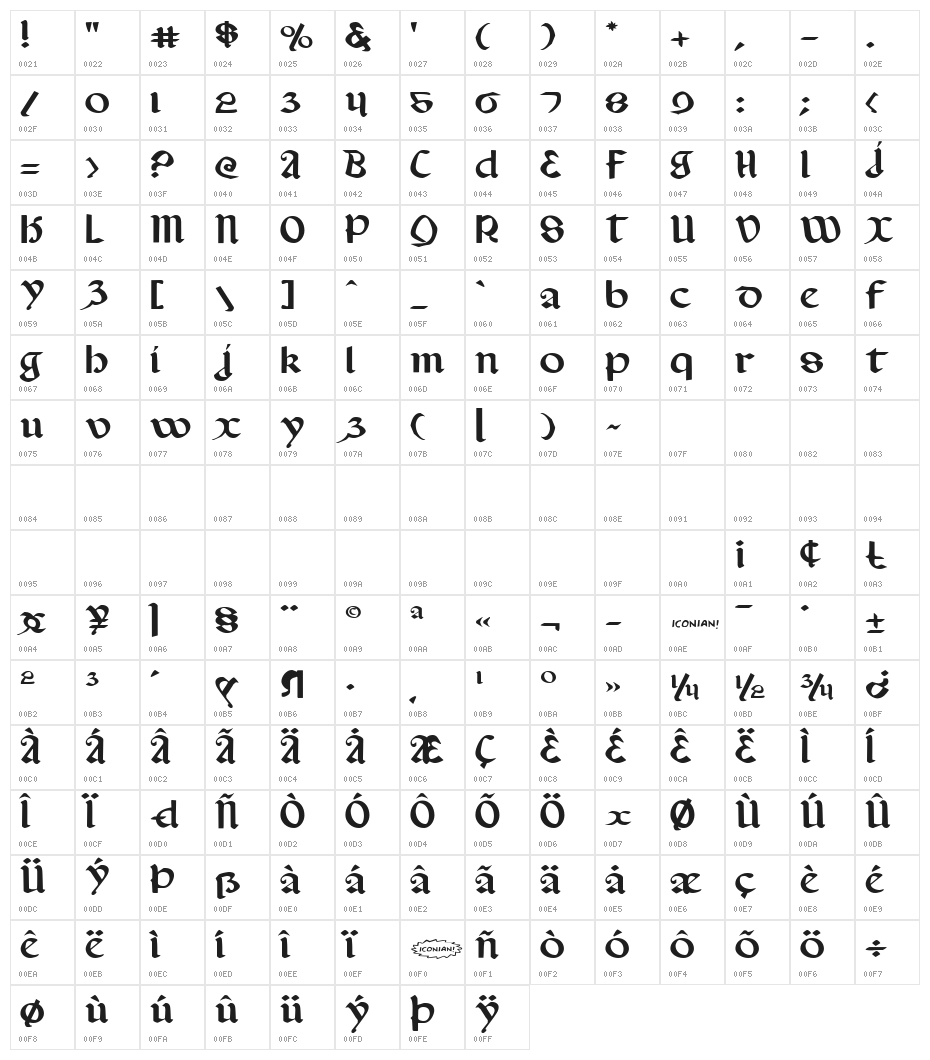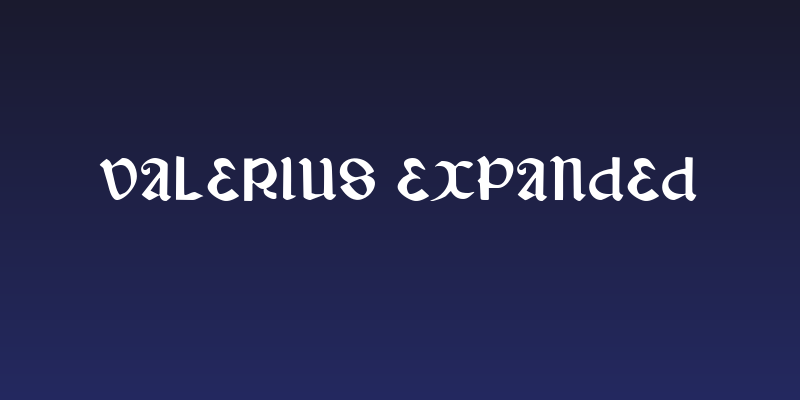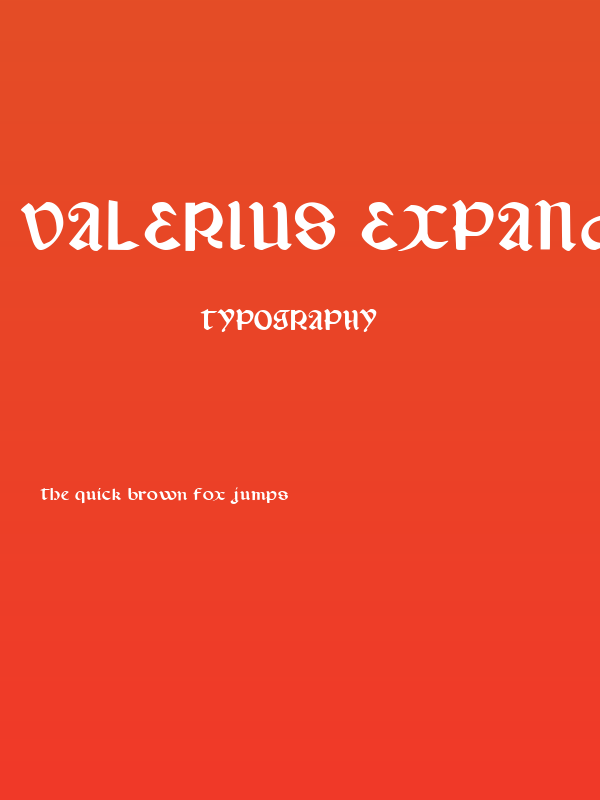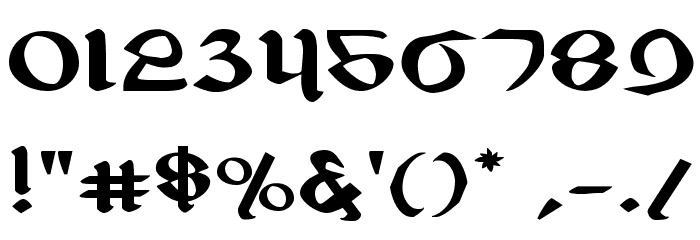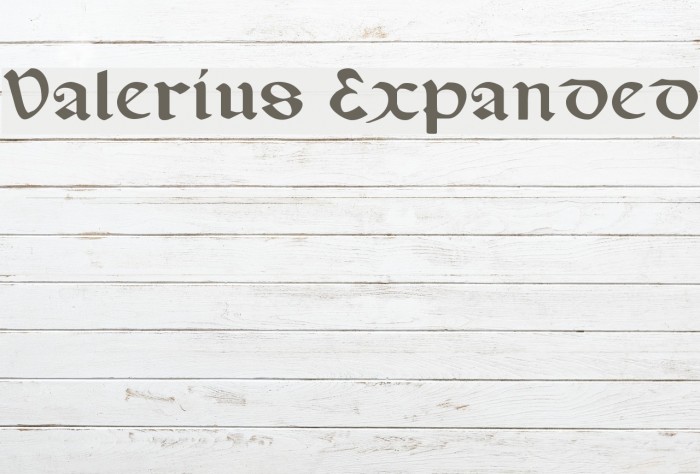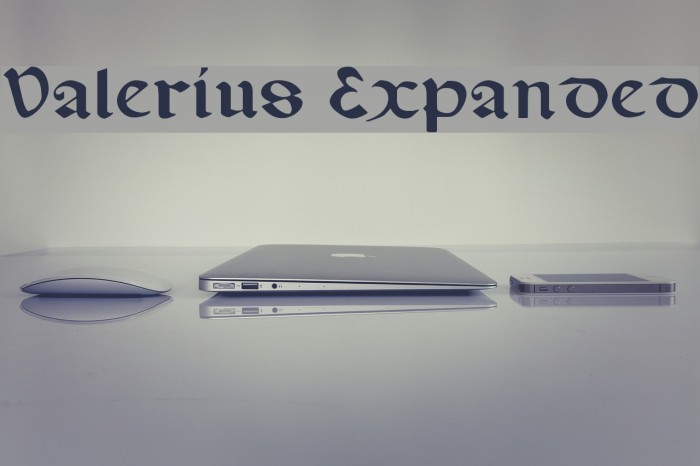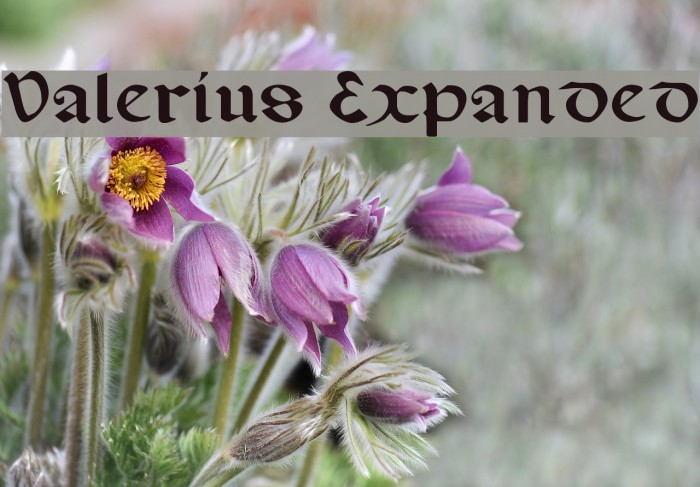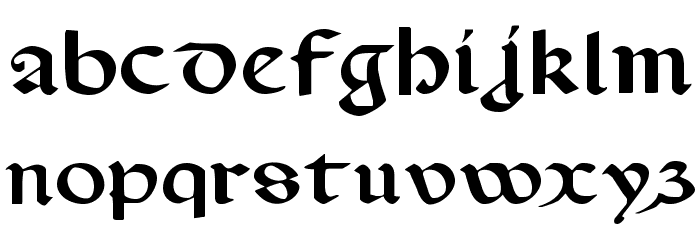
Valerius Expanded Font
Valerius Expanded Description
This font features a bold and dramatic style, reminiscent of traditional blackletter typefaces. The characters exhibit sharp, angular lines with pronounced serifs, giving it a historic and authoritative appearance. The uppercase letters are particularly striking, with a strong vertical emphasis and intricate detailing. The lowercase letters maintain the same boldness, ensuring consistency across the typeface. Numbers and special characters are designed with the same attention to detail, making them easily legible while maintaining the overall aesthetic. This font is ideal for projects that require a touch of elegance and tradition, such as formal invitations, certificates, or branding that seeks to convey a sense of history and prestige.
| Use Case | Headlines, Logos, Decorative text |
| Proposed Projects | Ideal for formal invitations, certificates, historical branding, and decorative headlines. |